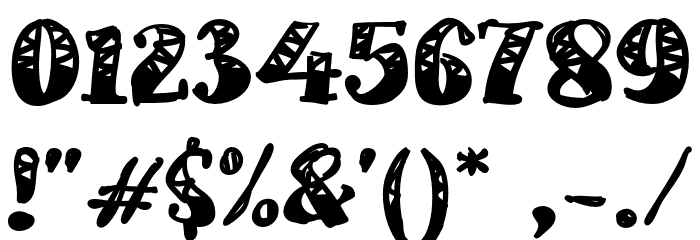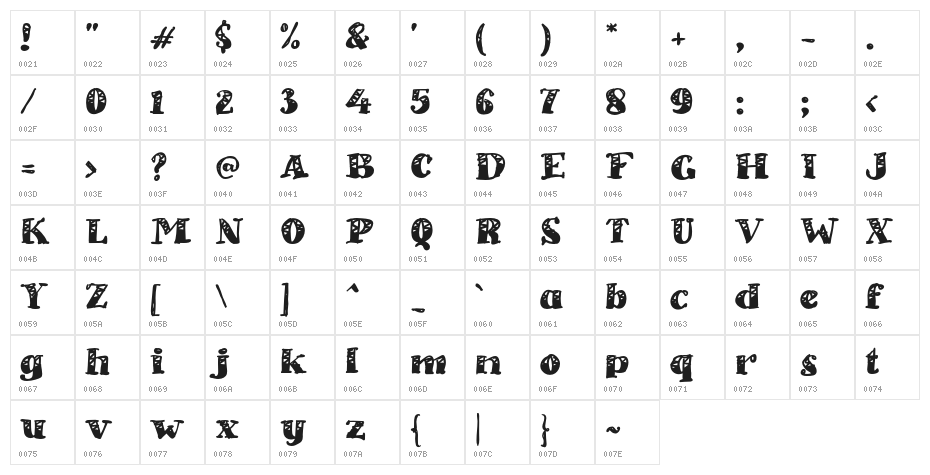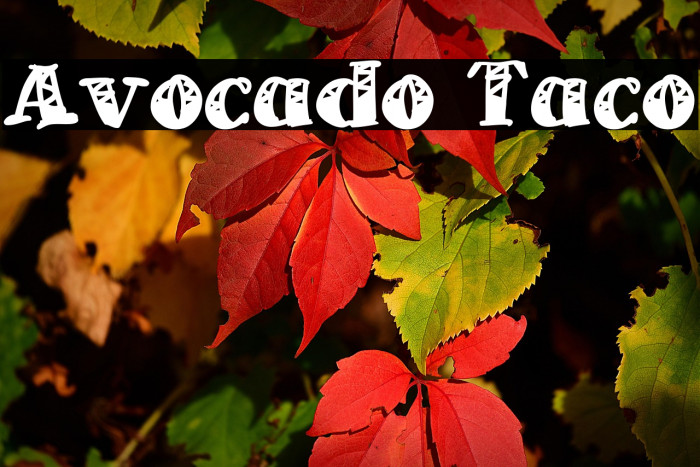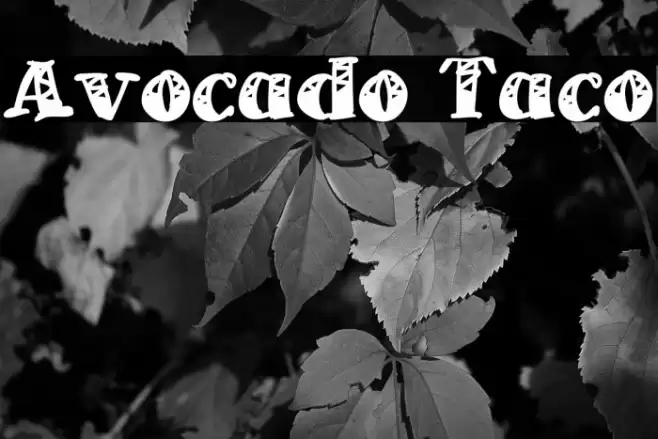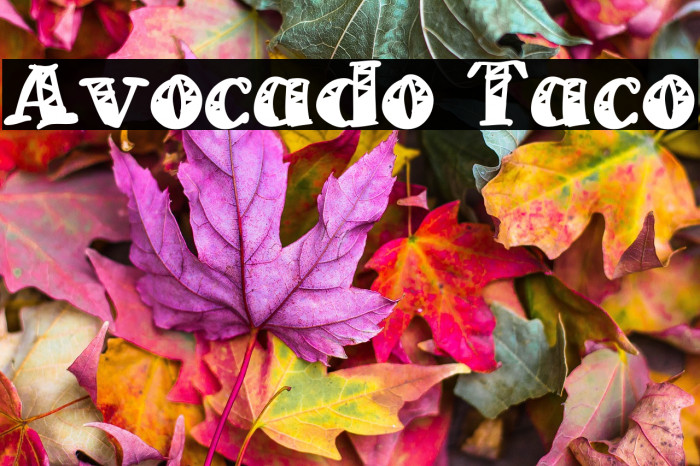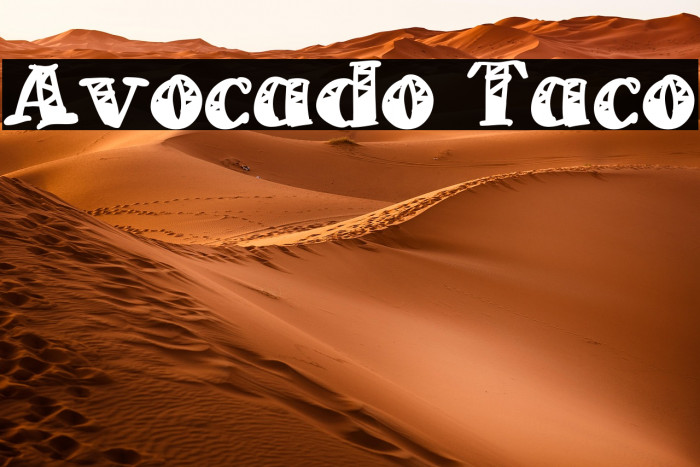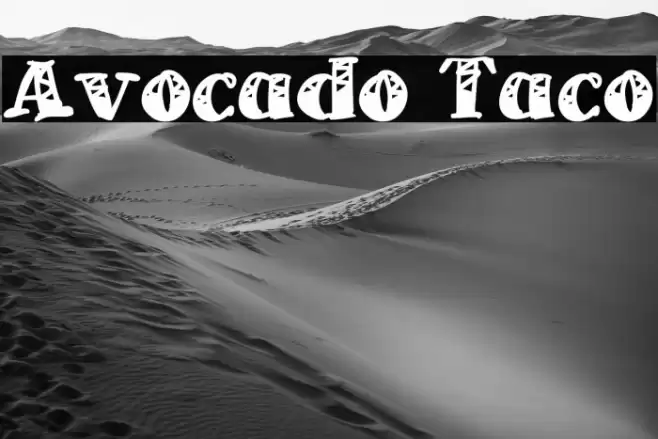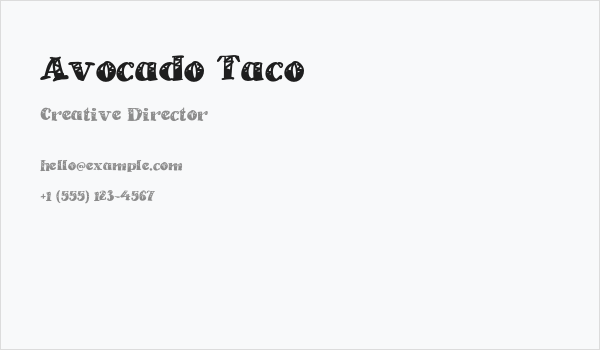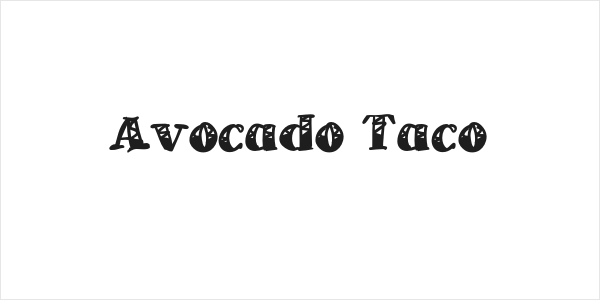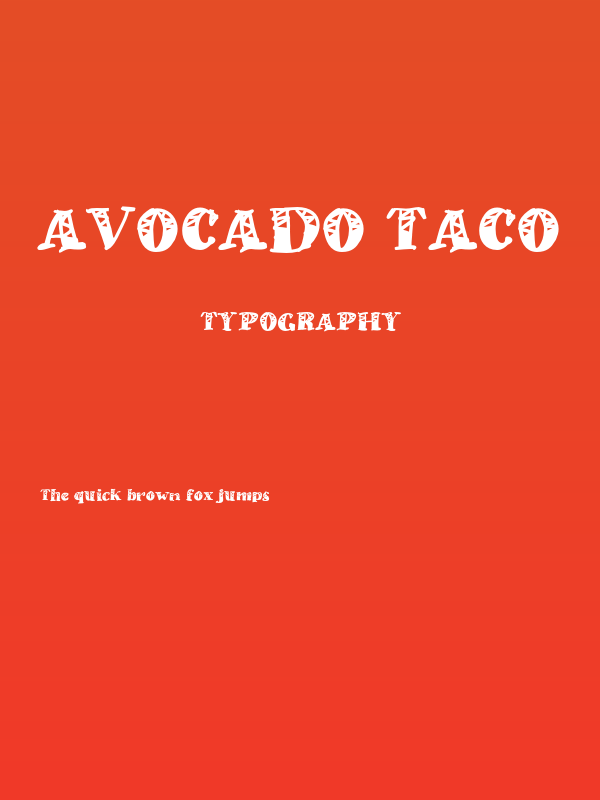
Avocado Taco Font
Avocado Taco Description
This font features a playful and bold design with a unique, decorative style. Each character is adorned with intricate patterns and cut-out shapes, giving it a lively and whimsical appearance. The strokes are thick and uneven, adding to its quirky charm. The font maintains a consistent weight throughout, with a slightly condensed width that enhances its boldness. The character spacing is relatively tight, which complements its dense and vibrant look. This font is ideal for projects that require a fun and eye-catching aesthetic.
| Proposed Projects | Perfect for children's book covers, party invitations, playful branding, and eye-catching posters. |